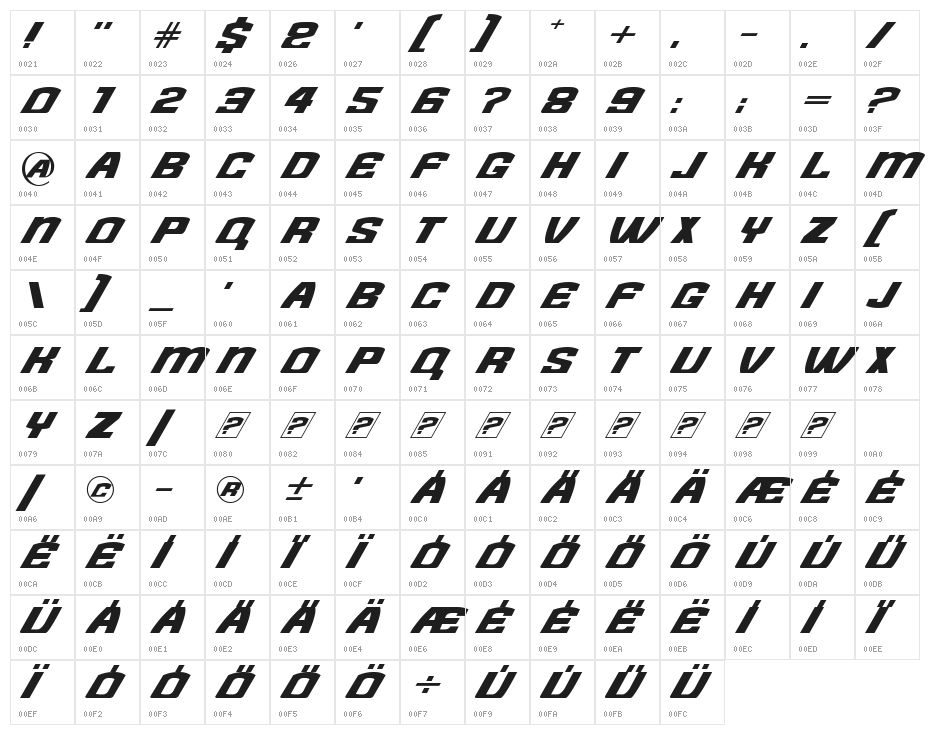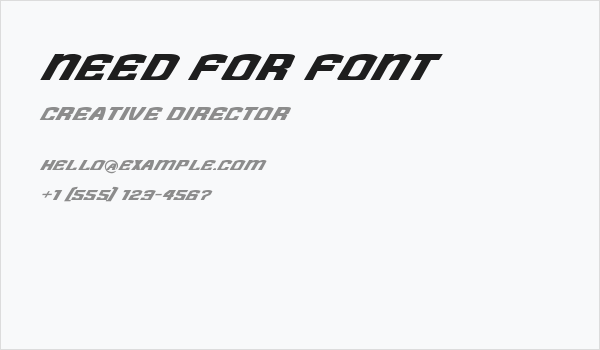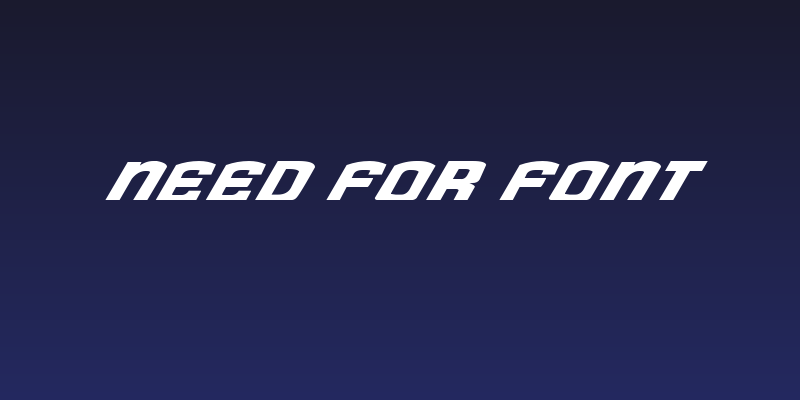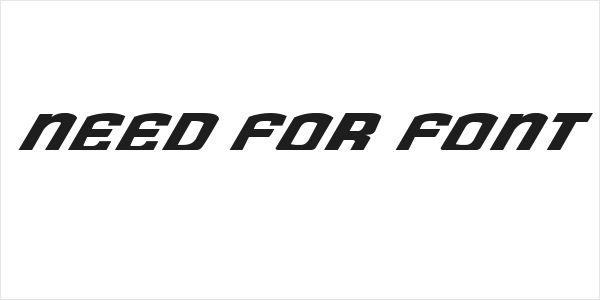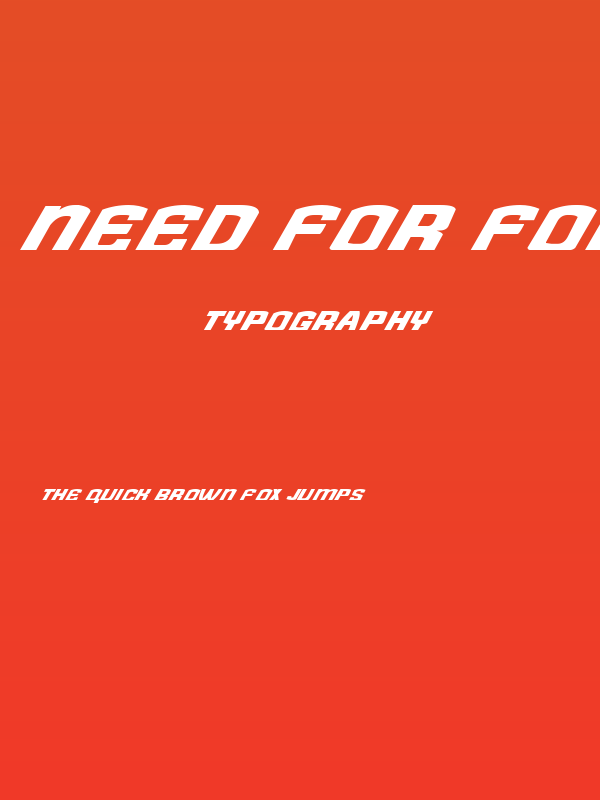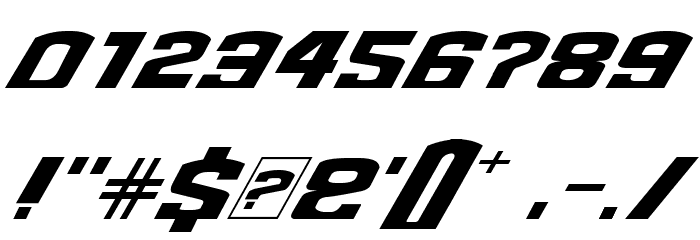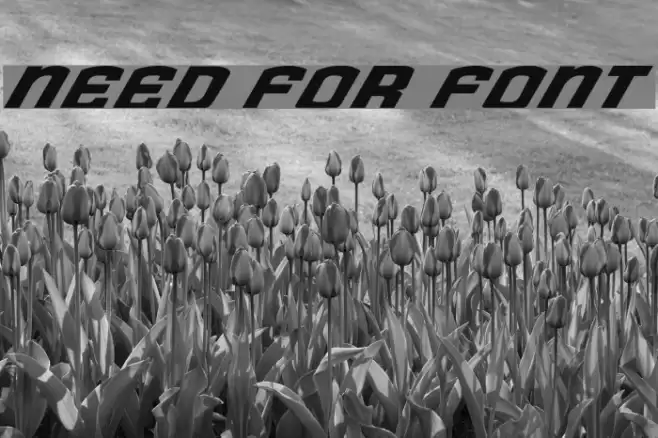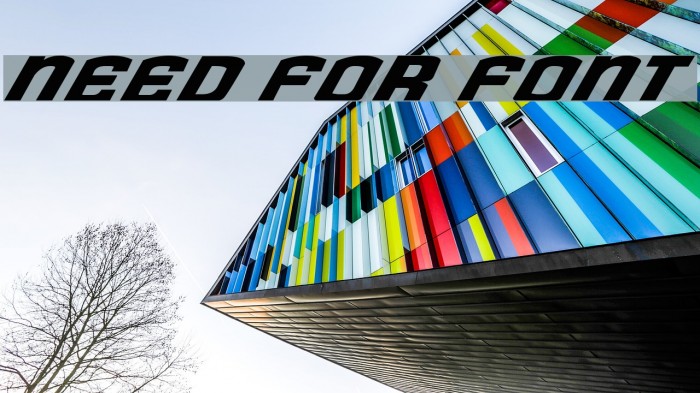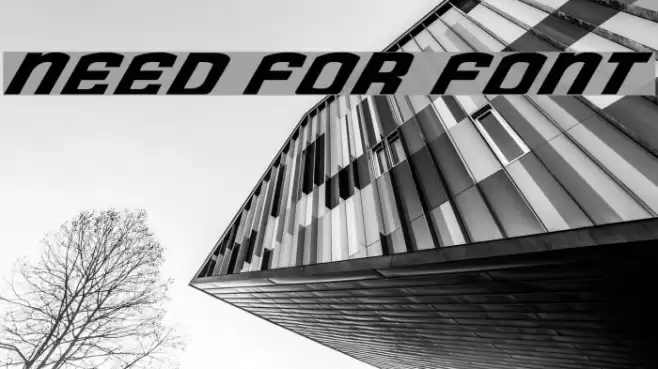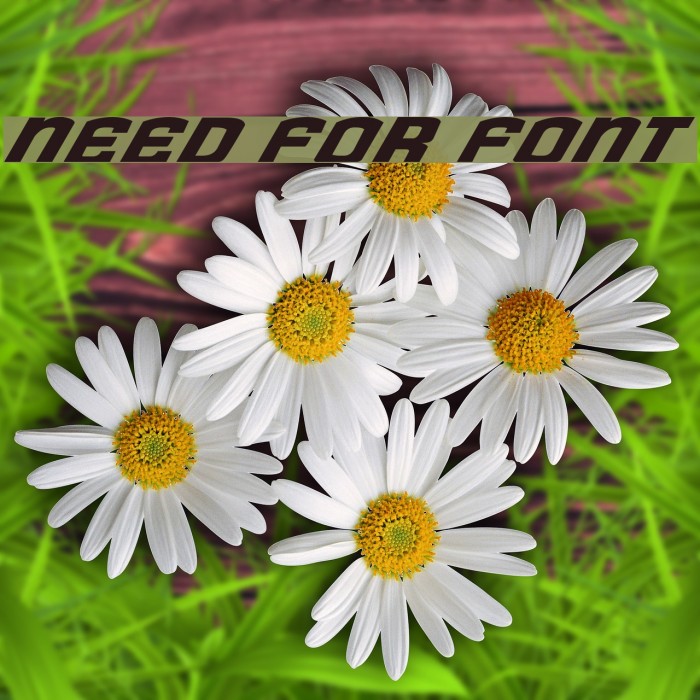
Need for Font Font
Need for Font Description
This font features a bold, italicized style with a strong, dynamic presence. The characters are slanted, giving a sense of motion and speed, which is enhanced by the thick, uniform strokes. The uppercase and lowercase letters maintain a consistent width, contributing to a cohesive look. The numbers and special characters follow the same design principles, ensuring uniformity across all glyphs. The font's design is modern and sleek, making it suitable for projects that require a sense of energy and movement.
| Use Case | Logos, Headlines |
| Proposed Projects | Ideal for automotive branding, sports team logos, dynamic posters, and action-themed designs. |